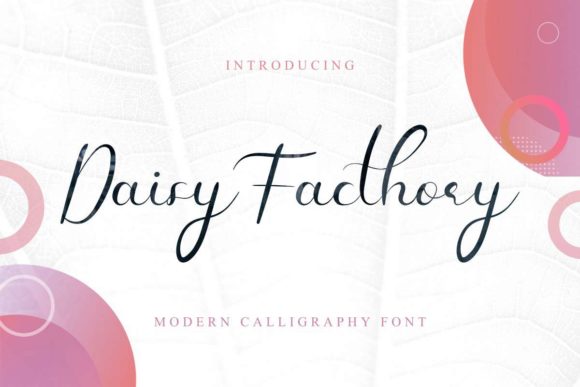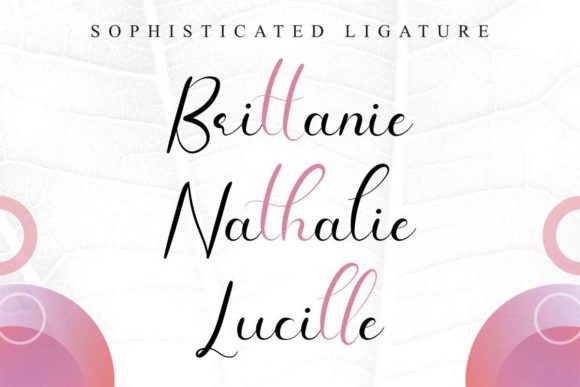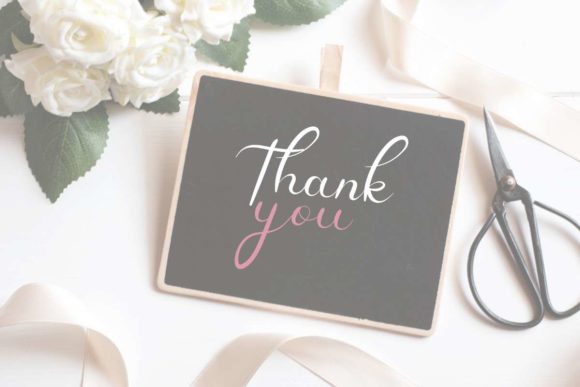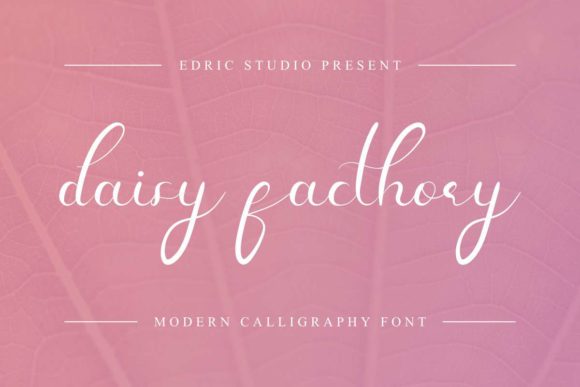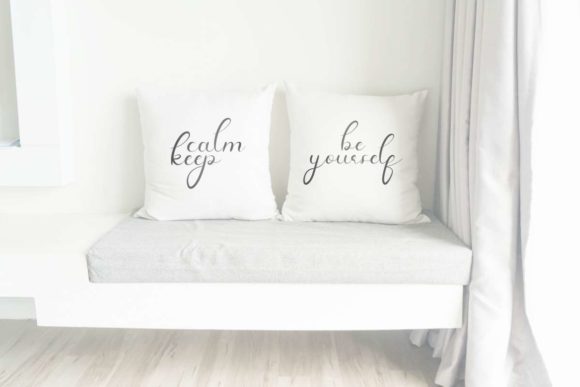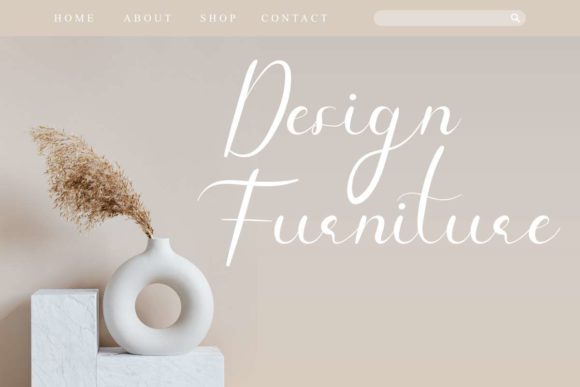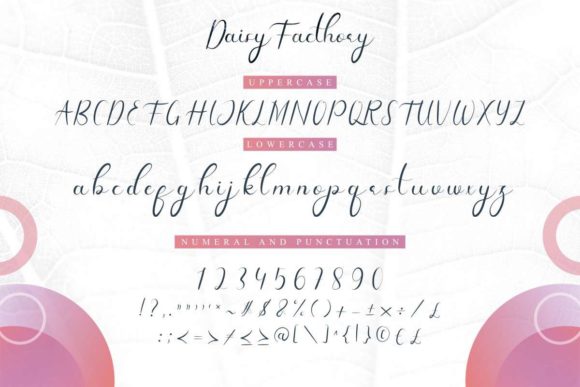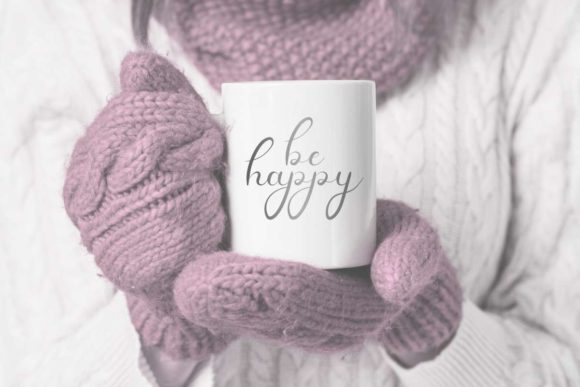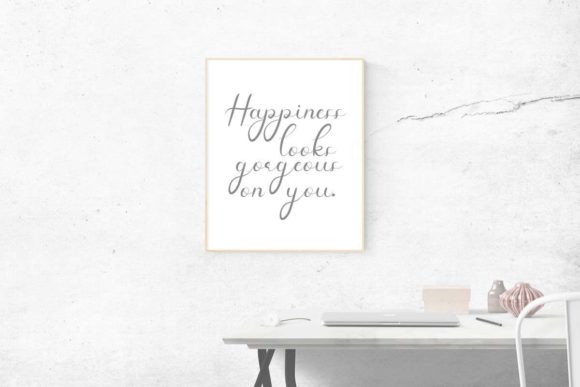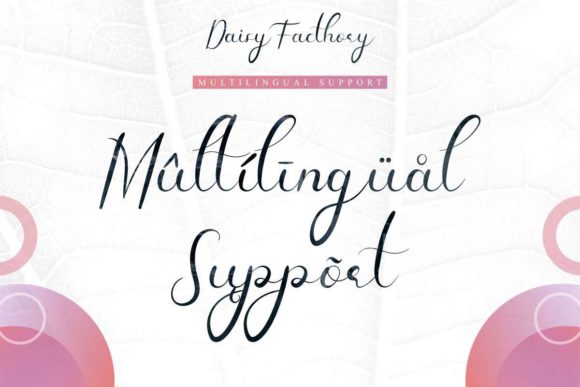
Daisy Facthory Font
About Daisy Facthory Font
Daisy Facthory is a lovely and flowing handwritten font. Its timeless style makes this font particularly adept to a wide variety of designs, both formal and non-formal. Let your imagination be the limit!